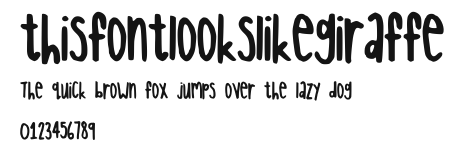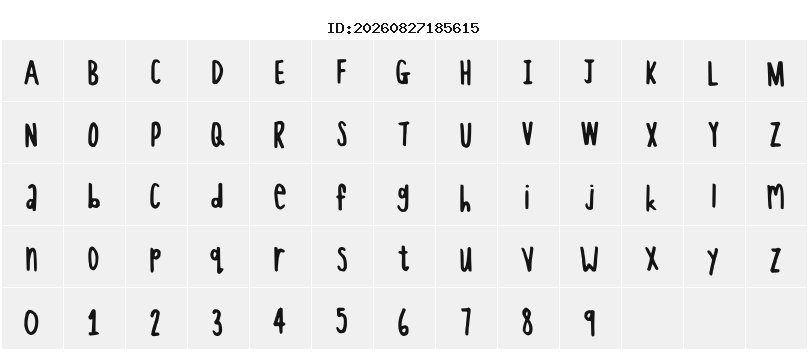
thisfontlookslikegiraffe Preview
• Font Name: thisfontlookslikegiraffe
About thisfontlookslikegiraffe.ttf
thisfontlookslikegiraffe.ttf is a modern, elegant sans-serif font designed for ultimate readability and visual harmony. Perfect for branding, headlines, web design, and print materials.